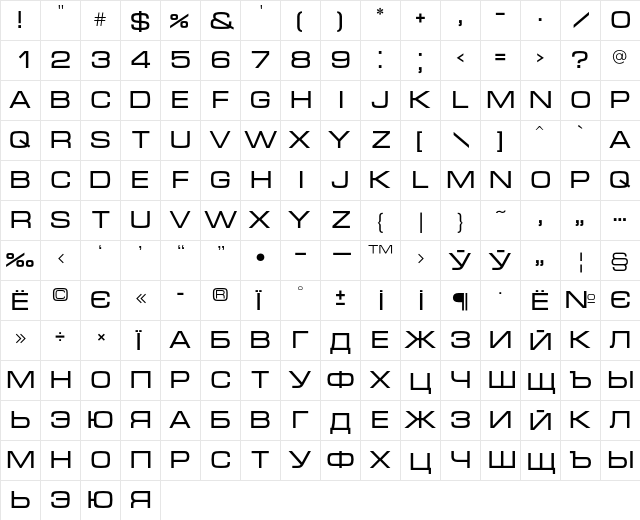
Micra Regular Font Preview
Micra Regular
Design Context for Micra Typeface
Micra offers clean, dependable letterforms without strong stylistic allegiance, making it a practical choice for designers who need flexibility.
Pro Tip: Use Micra in both headline and body roles to test its range before committing to a single application.